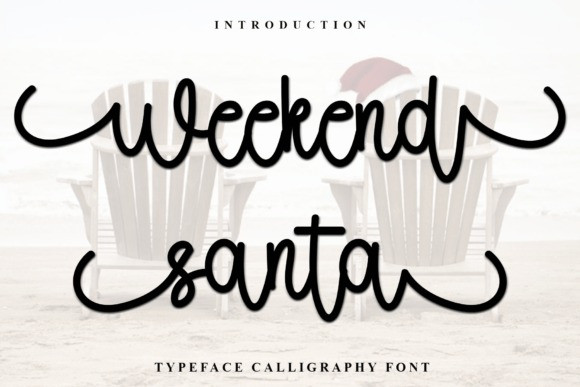
Weekend Santa Font
Weekend Santa Font is a beautiful and eye-catching font designed with a soft, unique touch. Its distinctive strokes give it a special character, making it meaningful and versatile for future use. With various characters, it’s perfect for design projects, crafts, and other creative works.